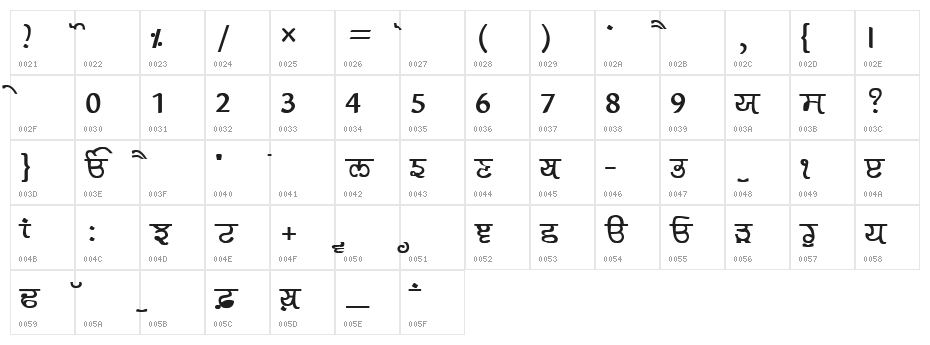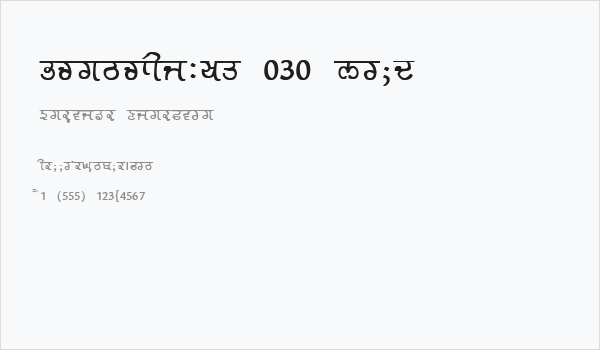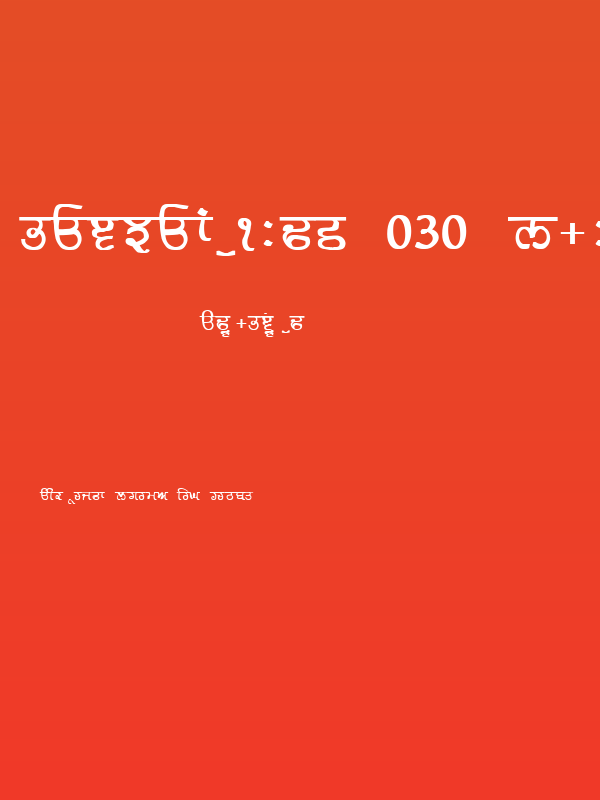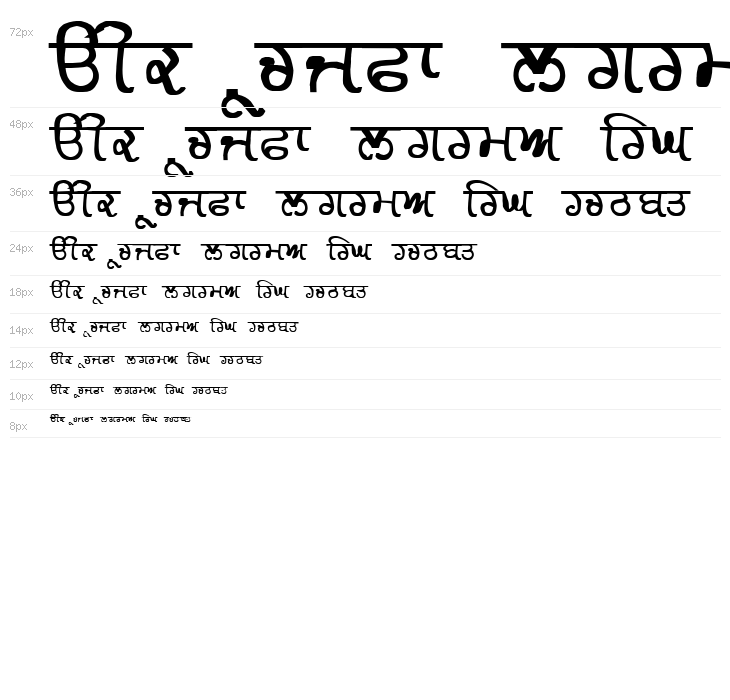
GurmukhiLys 030 Bold Font
GurmukhiLys 030 Bold Description
This font is a bold and expressive representation of the Gurmukhi script, characterized by its thick strokes and strong presence. The characters are well-defined with a consistent weight throughout, making it highly legible. The script maintains traditional elements while offering a modern touch through its boldness. The numerals are clear and match the overall style, ensuring uniformity across different types of content. The special characters are distinct and integrate seamlessly with the rest of the font, providing versatility in usage.
| Use Case | Headlines, Signage, Posters |
| Proposed Projects | Ideal for headlines, posters, signage, and any project requiring a bold Gurmukhi script. |